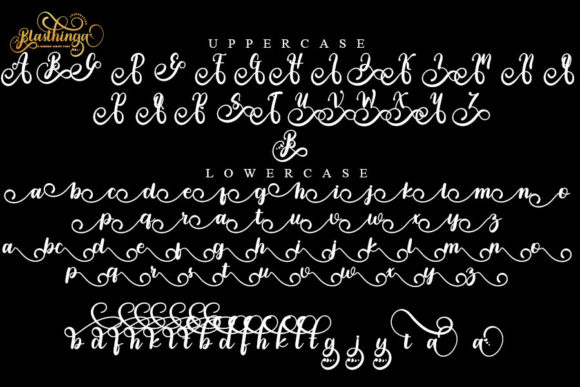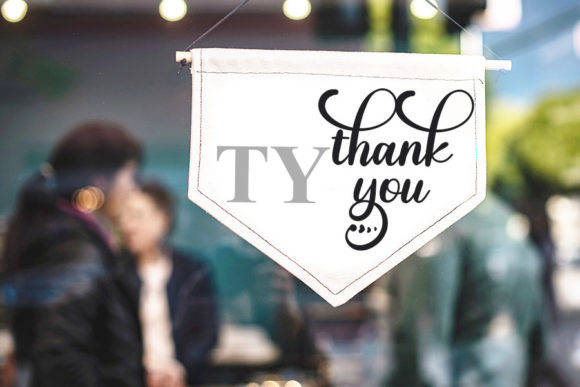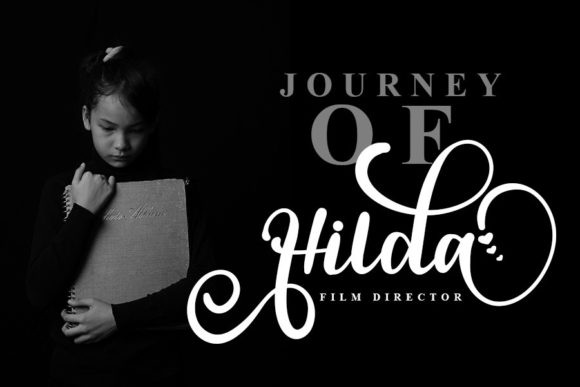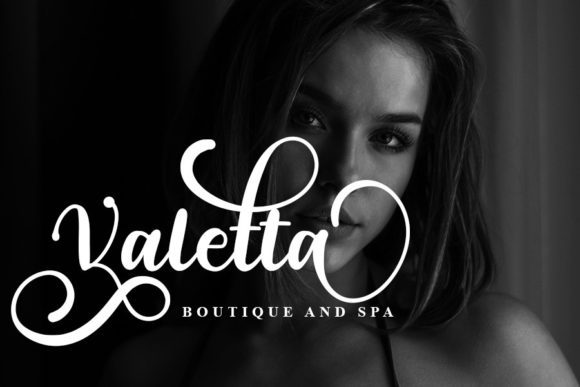
About Blasthinga Font
Blasthinga a is a gorgeous and bold handwritten font crafted to give your headlines and logotype projects a stylish touch. This font reads strong, confident, and dynamic and can add tons of nostalgic character to your designs. This font is PUA encoded which means you can access all of the glyphs and swashes with ease!